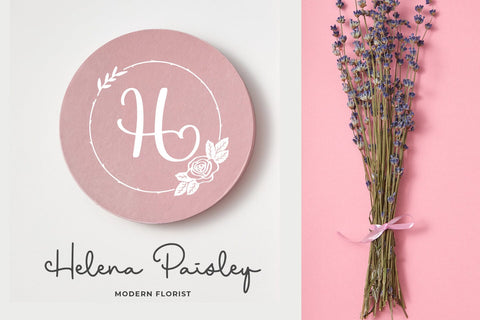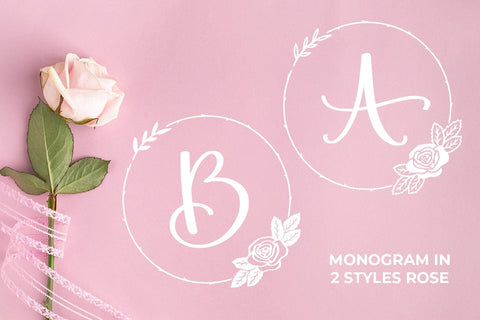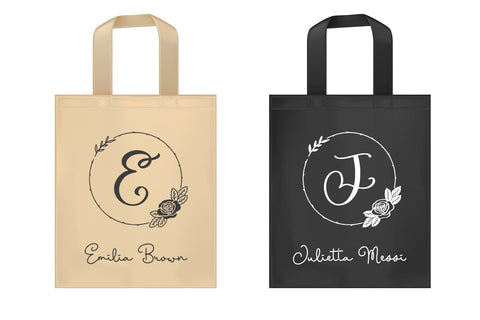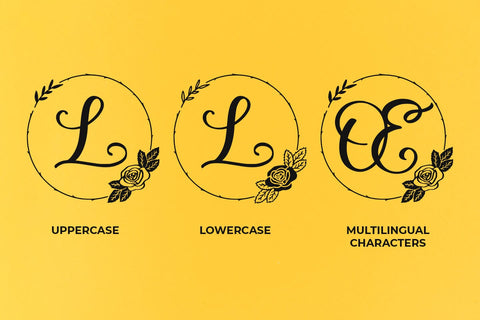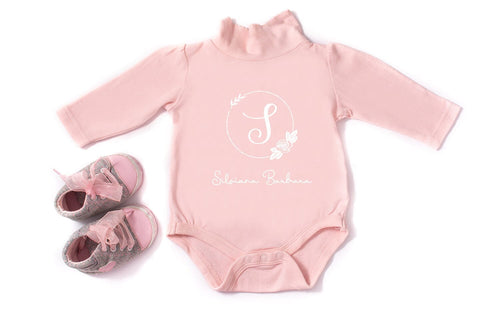
Rosegram
introducing
ROSEGRAM
- monogram inside 2 styles rose -
ROSEGRAM is great for logos, wedding invitations, t-shirt designs, title, mugs, tote bag designs, cards, banners, social media, and anything of craft projects.
- uppercase
- lowercase
- multilingual support